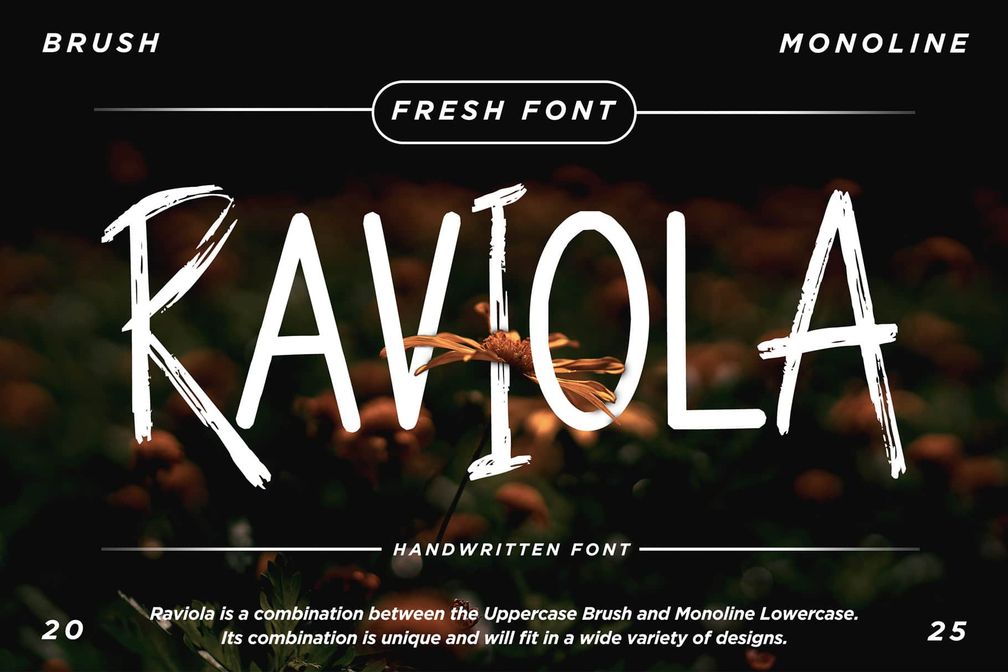
Raviola
Raviola – Handwritten Font
Raviola is a uniquely charming handwritten font that blends bold uppercase brush strokes with delicate monoline lowercase characters. This distinct pairing gives Raviola a modern yet organic feel—perfect for designs that need both personality and elegance. Whether you’re crafting logos, packaging, or quotes, Raviola brings stylish contrast and creative flair to every project.
Dual-Style Lettering: A creative mix of uppercase brush letters and monoline lowercase for a dynamic look.
Modern Yet Natural: Bold meets subtle in a stylish and versatile font design.
Uppercase & Lowercase: Complete character set with smooth contrast and readability.
Ideal For: Logos, branding, social media graphics, modern packaging, lifestyle content, and personal projects that need a bold yet elegant touch.